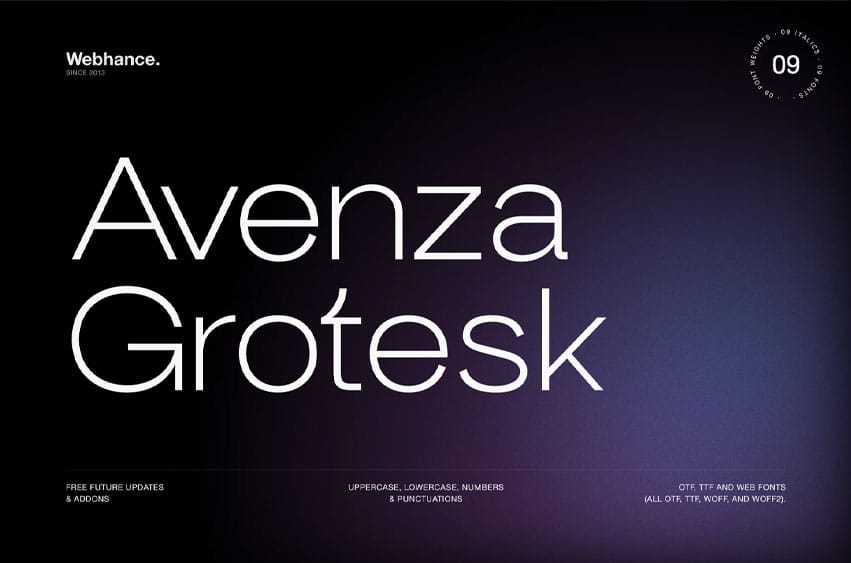
Avenza Grotesk Font is a modern grotesk sans-serif typeface designed to bring clarity, precision, and versatility to contemporary design projects. Combining clean geometry with subtle grotesk characteristics, it offers a balanced and professional appearance suitable for both digital and print applications.
Built with a focus on readability and consistency, Avenza Grotesk works effortlessly across branding systems, user interfaces, editorial layouts, websites, packaging, and marketing materials. Its neutral personality allows content to take center stage while maintaining a strong and confident visual presence.
The family features 9 carefully crafted weights, from Thin to Heavy, each accompanied by matching italics, providing a complete typographic toolkit for creating effective hierarchy and visual contrast. Whether used for bold headlines, detailed interfaces, or extended reading experiences, Avenza Grotesk delivers reliable performance at every size.
With an extensive character set, multilingual language support, numerals, symbols, punctuation, and extended glyph coverage, Avenza Grotesk is designed to meet the needs of modern designers working across global projects.